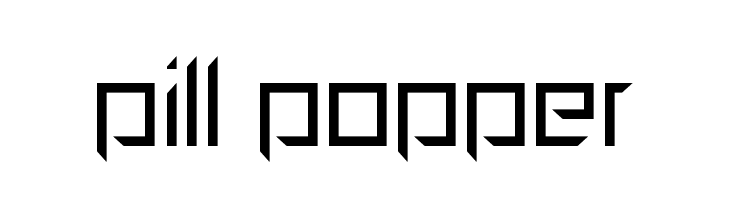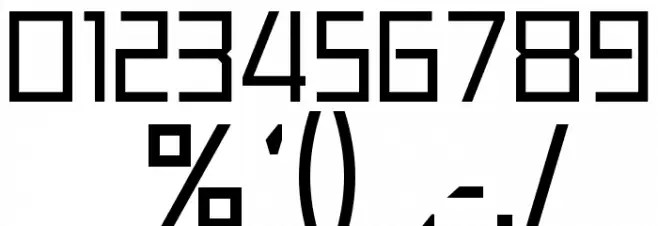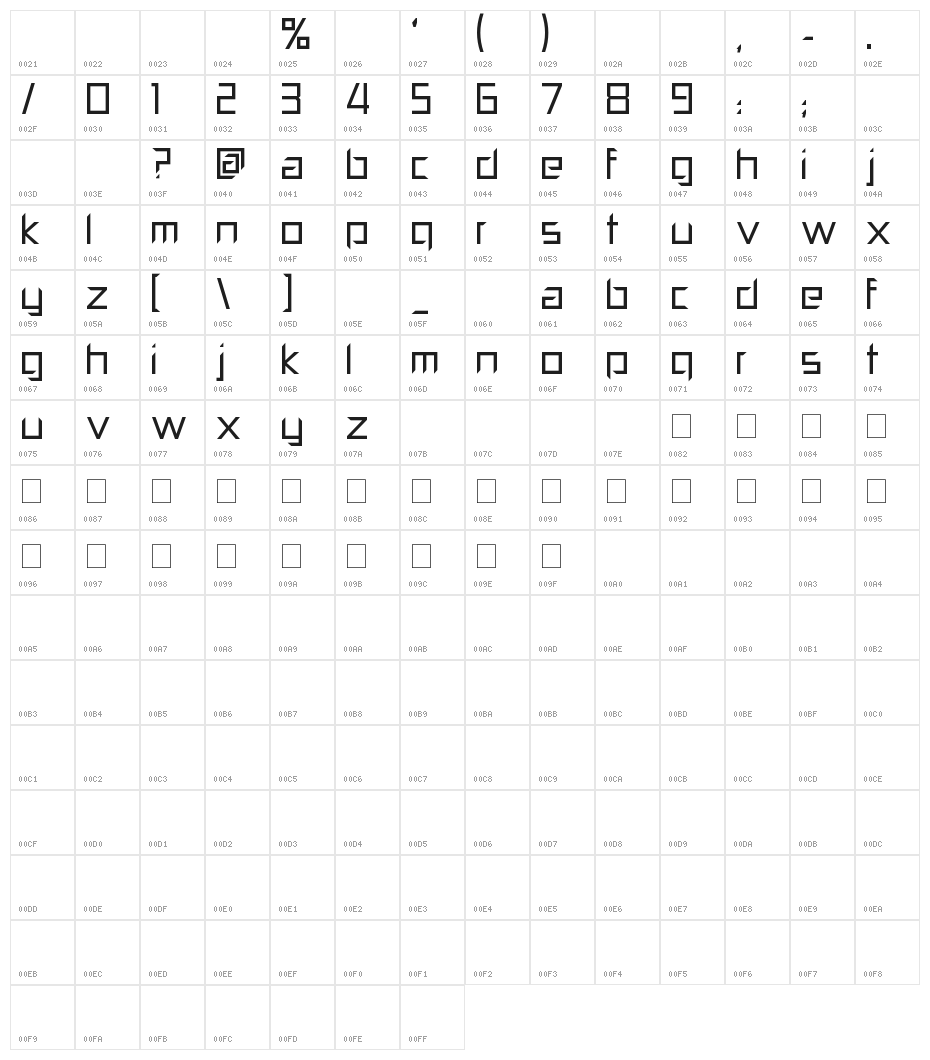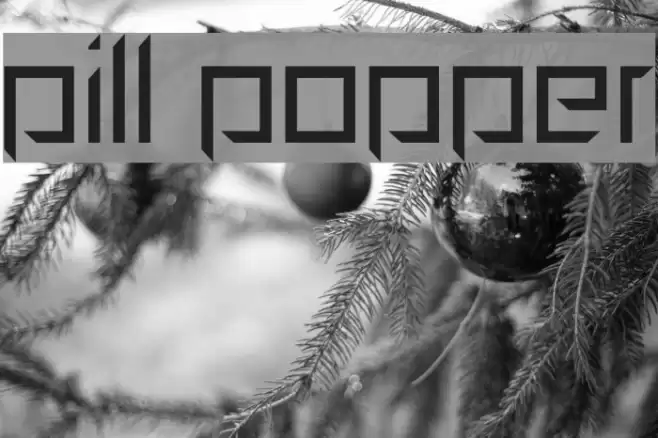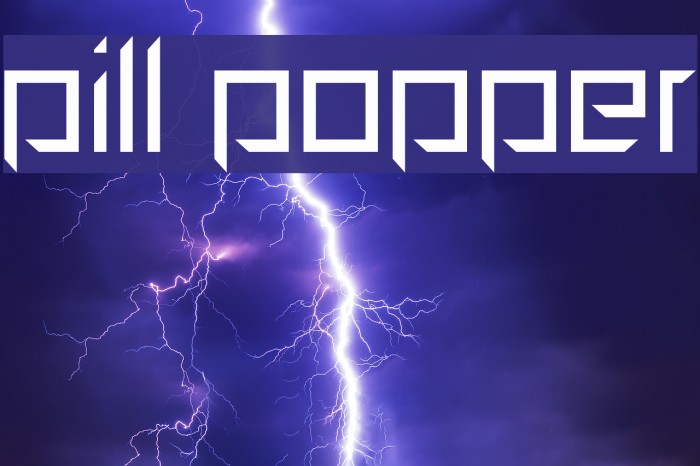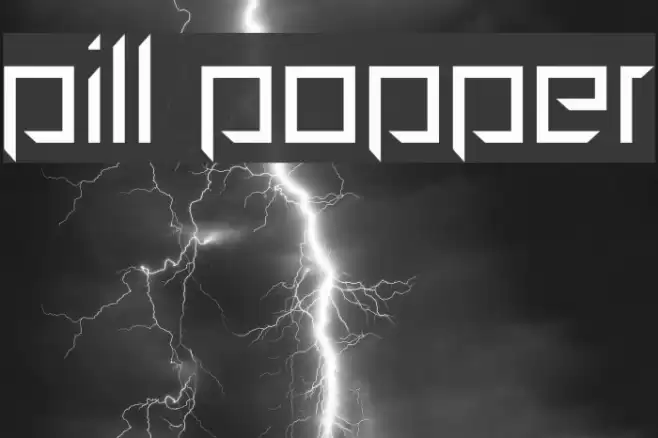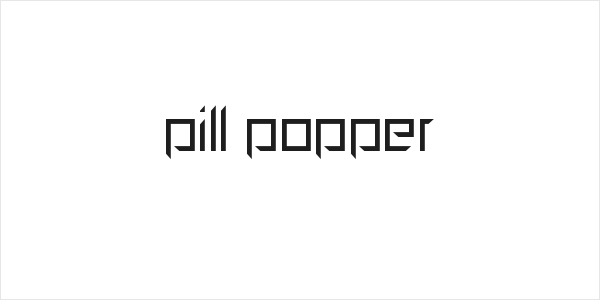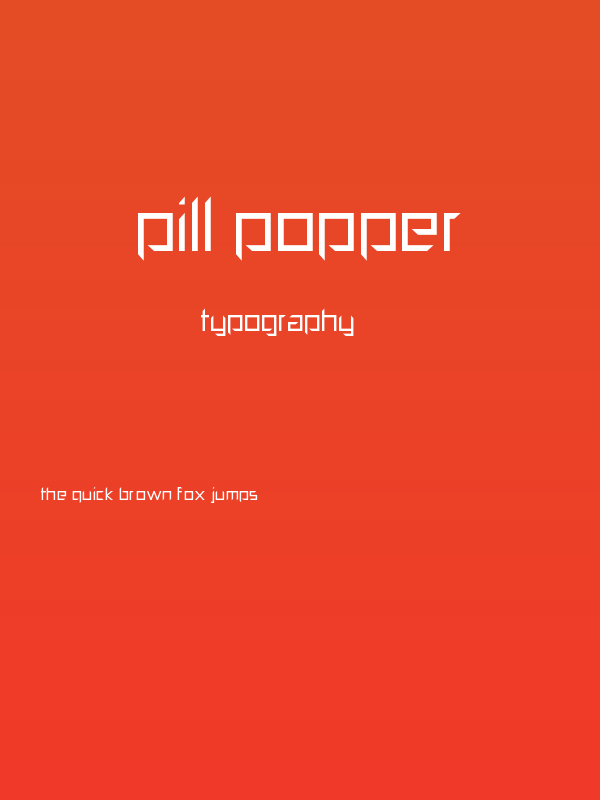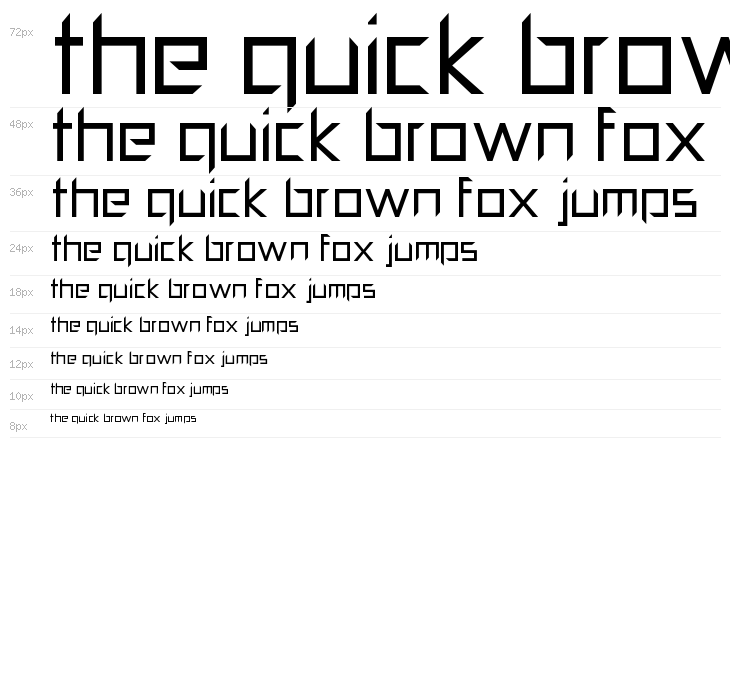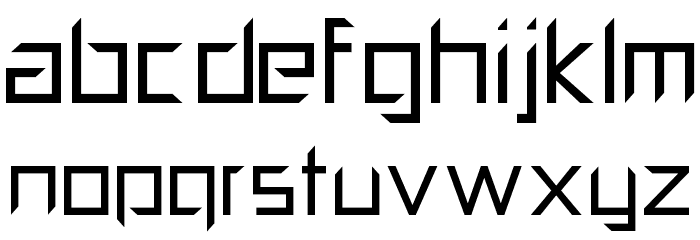
Pill Popper Font
Pill Popper Description
This font features a geometric and angular design, characterized by sharp edges and a futuristic appearance. The letters are constructed with straight lines and pointed corners, giving it a distinct, modern look. The uppercase and lowercase letters maintain a consistent style, with the lowercase being slightly smaller in size but retaining the same angular characteristics. The numbers follow the same design principles, ensuring uniformity across all characters. The special characters are also designed to match the overall aesthetic, making this font suitable for projects that require a bold and striking visual impact.